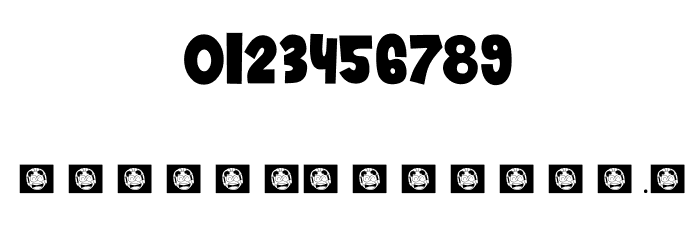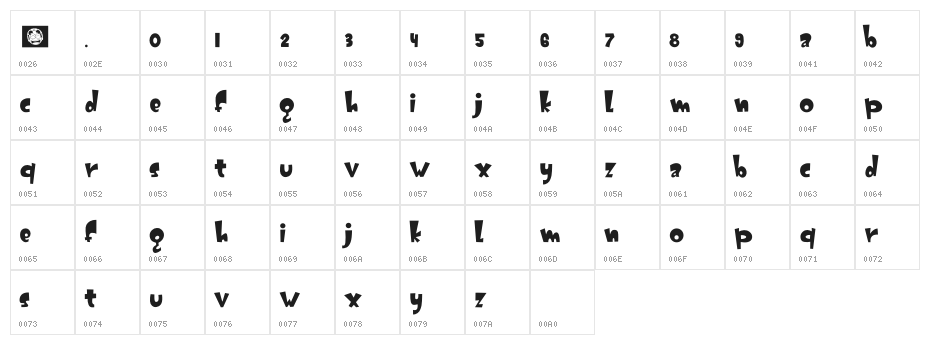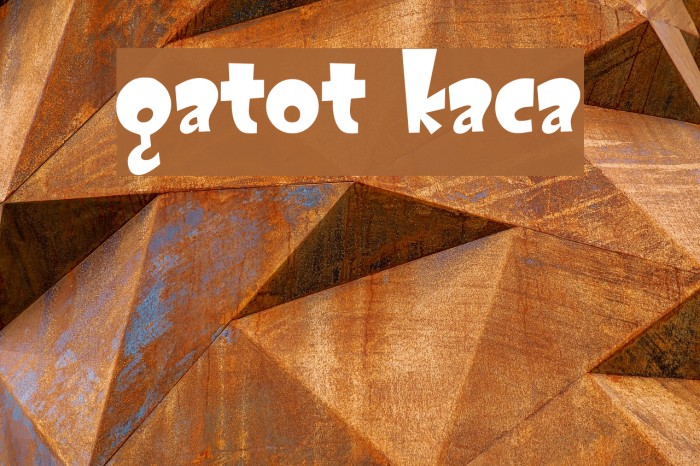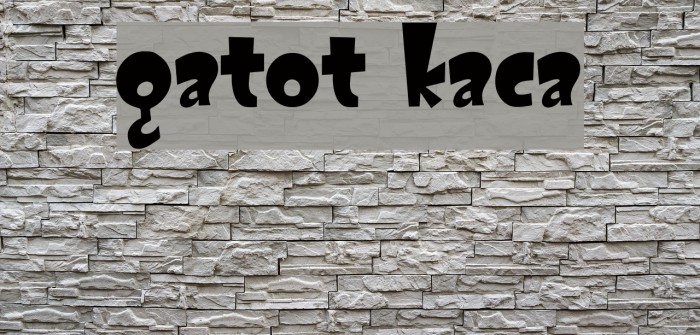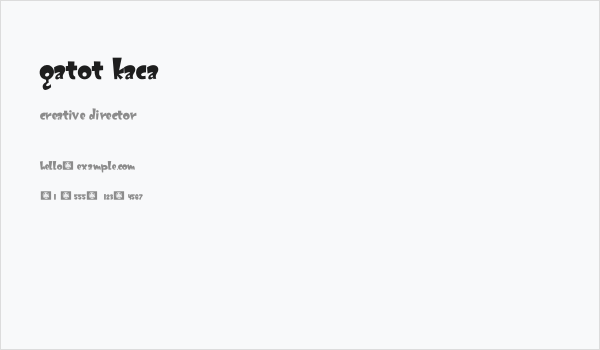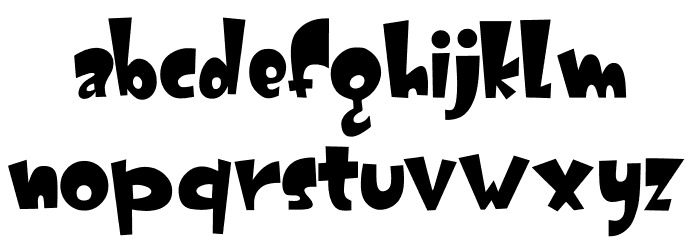
GATOT KACA Font
GATOT KACA Description
This font features a playful and bold design, characterized by its exaggerated curves and whimsical shapes. The letters have a cartoonish quality, with varying stroke widths that add a dynamic and lively feel. The uppercase and lowercase letters maintain a consistent style, with some characters having unique, eye-catching elements. The numbers follow the same playful theme, making the font suitable for creative and informal contexts. The special characters are designed to match the overall aesthetic, ensuring a cohesive look across all elements.
| Overall Style | Playful, Cartoonish |
| Proposed Projects | Ideal for children's books, comic strips, playful branding, and creative posters. |